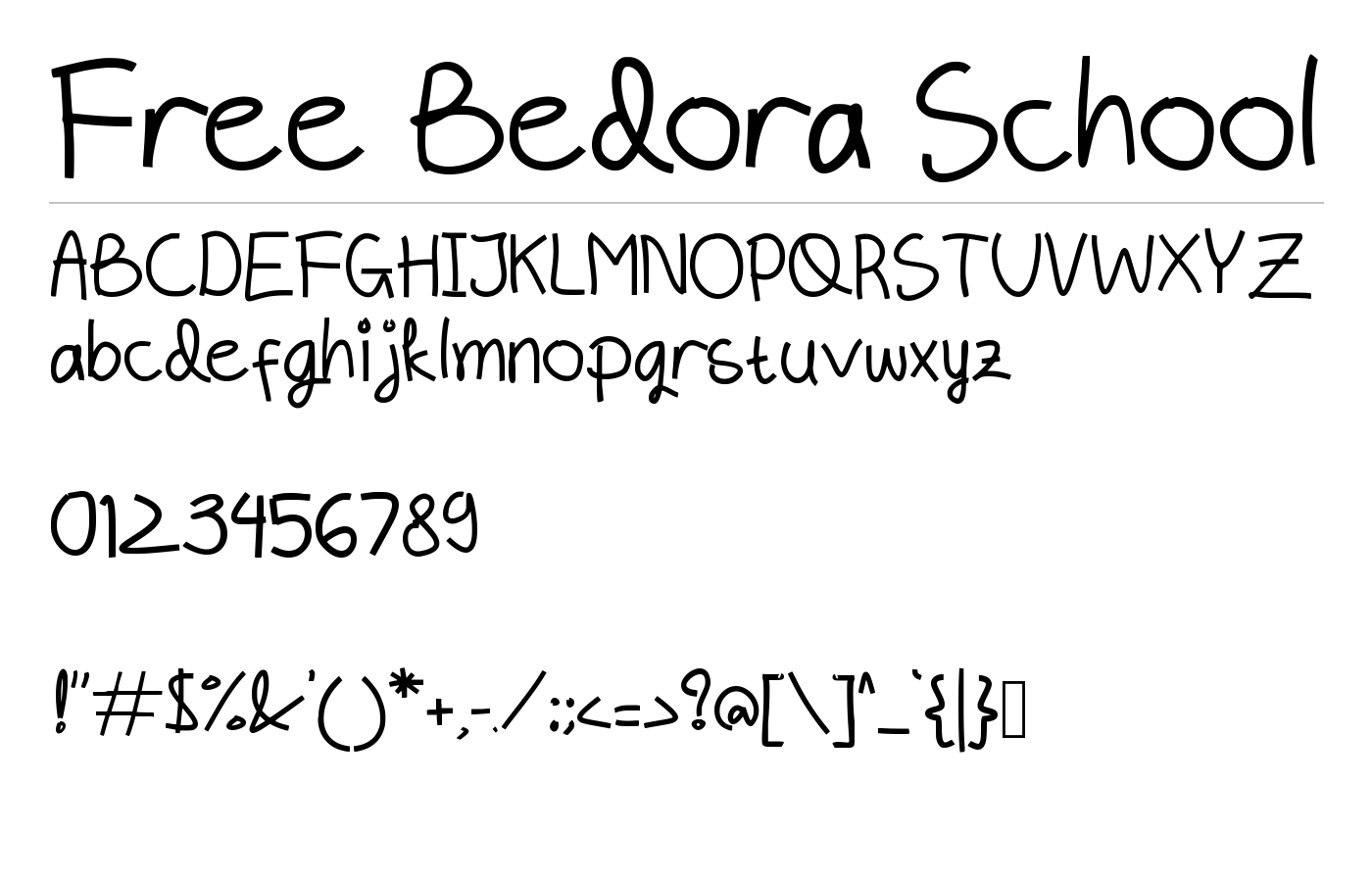
Free Bedora School is a playful and casual handwritten sans serif font that features irregular, slightly quirky letterforms with a light weight and normal width. Its tall x-height and uneven strokes give it a friendly, childlike personality, making it ideal for educational materials, children’s books, and creative projects that want to evoke an informal, approachable vibe. This font works well in headlines and display settings where a fun, personal touch is desired.
Free Bedora School Font